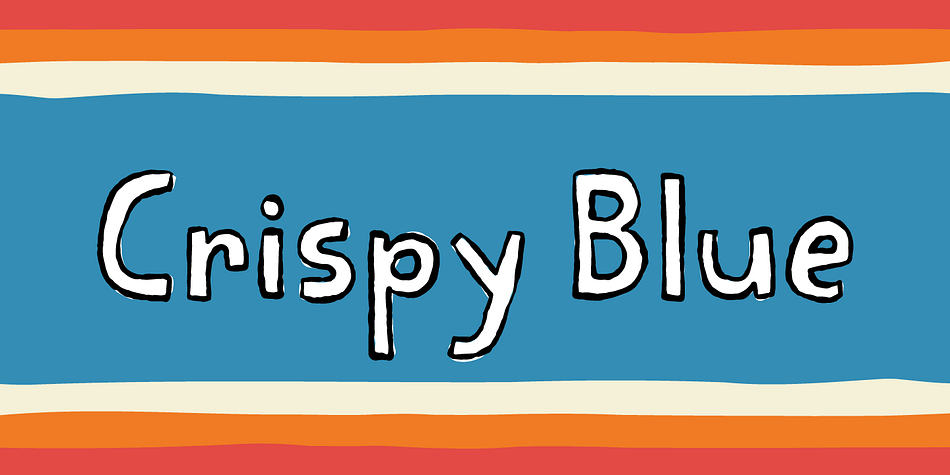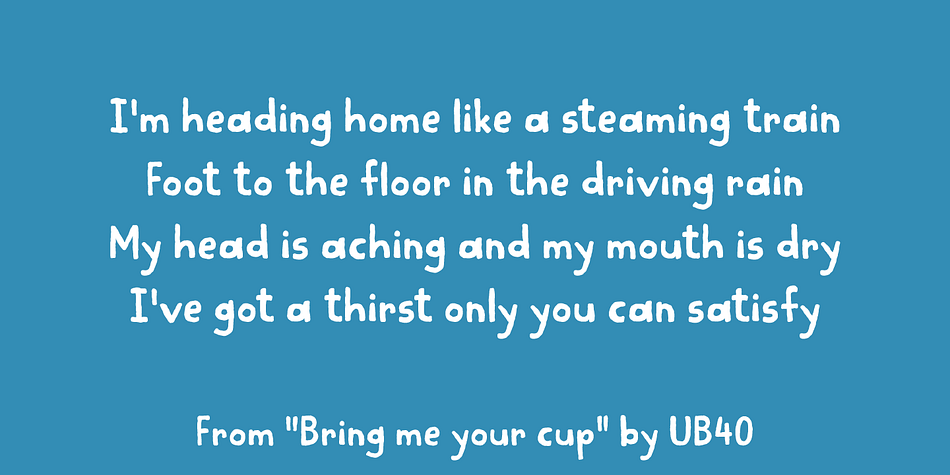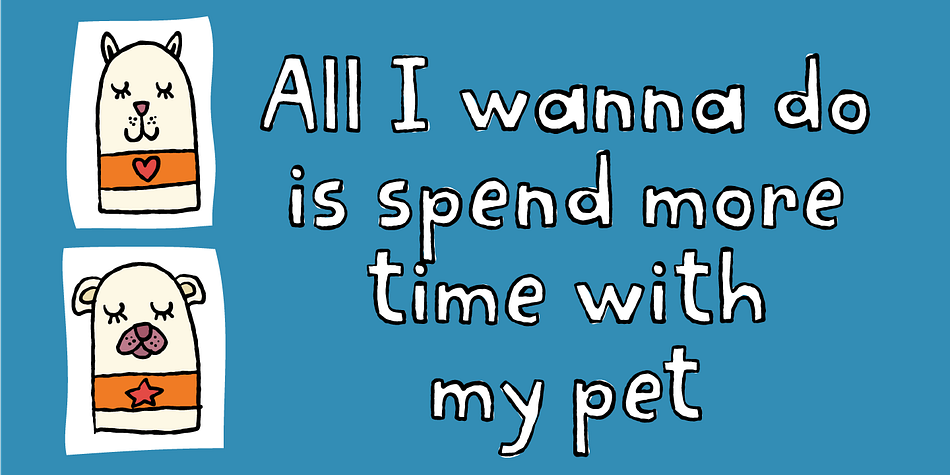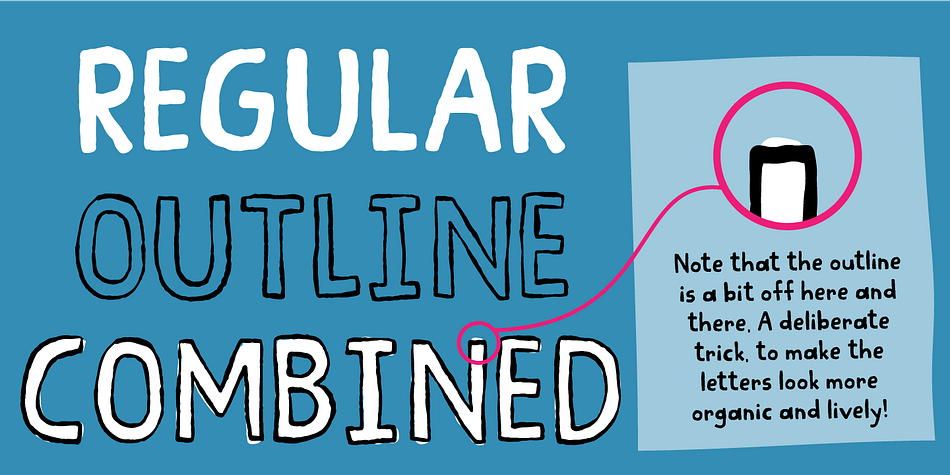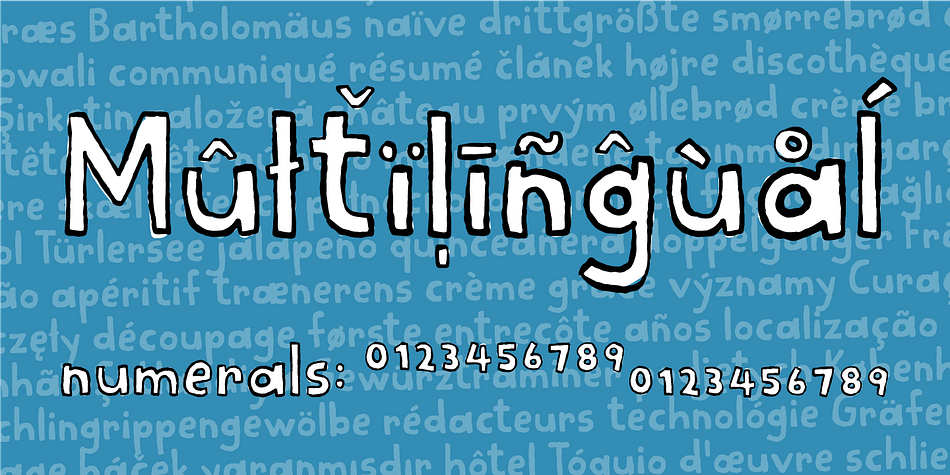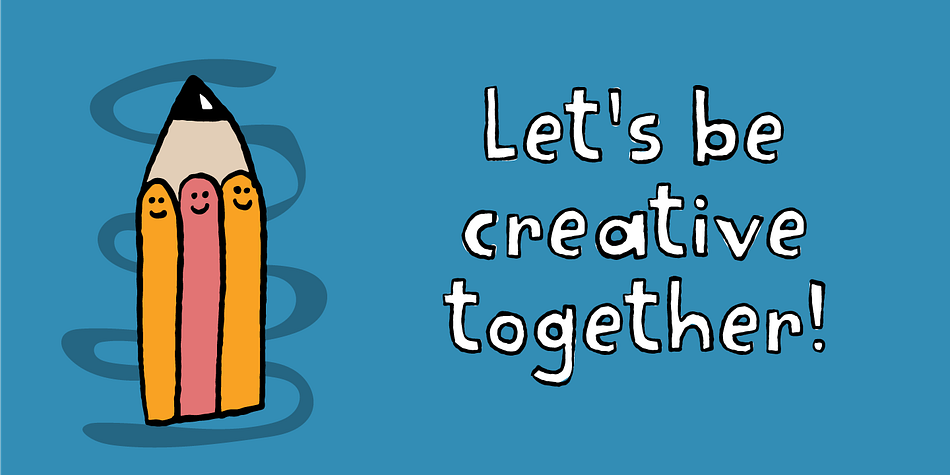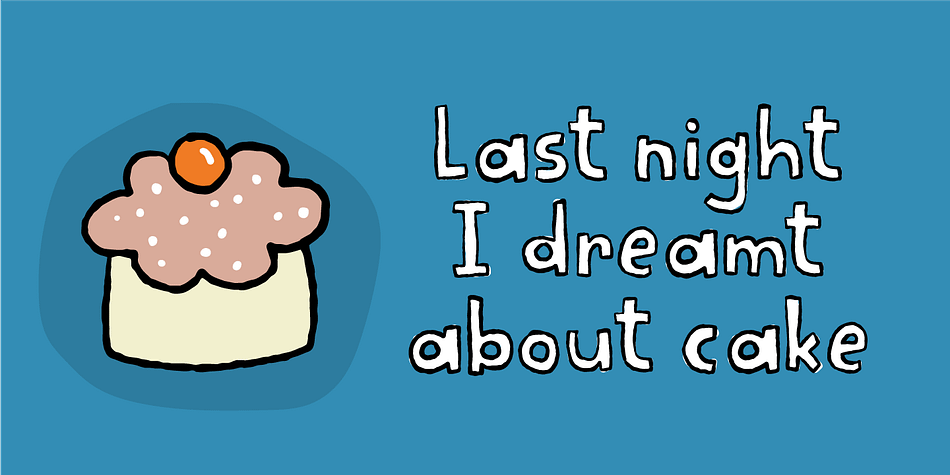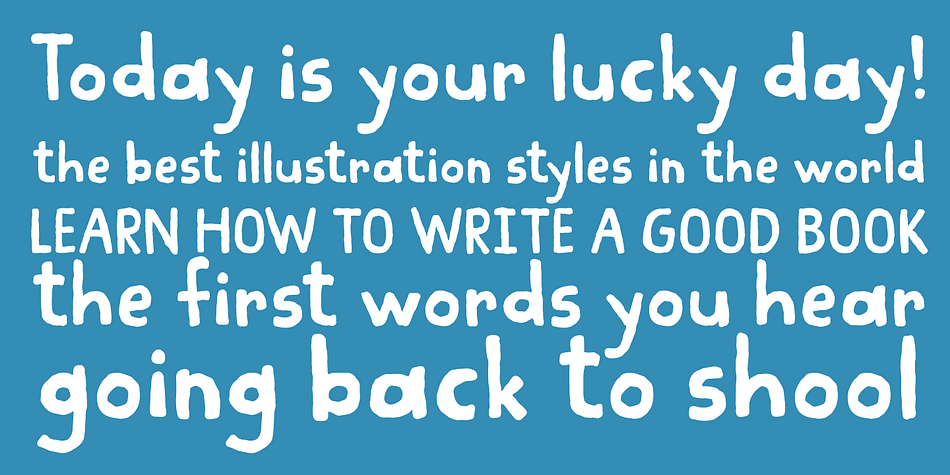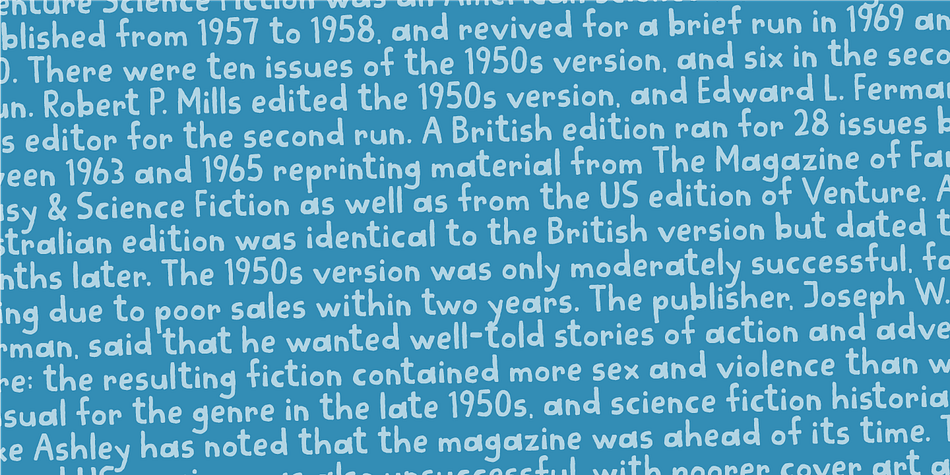
Crispy Blue
Designed by Jakob Fischer, Crispy Blue is a hand drawn and kids font family. This typeface has two styles and was published by Bogstav.
Crispy Blue is handmade, using a blobby brush. Inspired by a clumsy sign I saw the other day: full of blobby lines and uneven strokes - but full of life and personality!